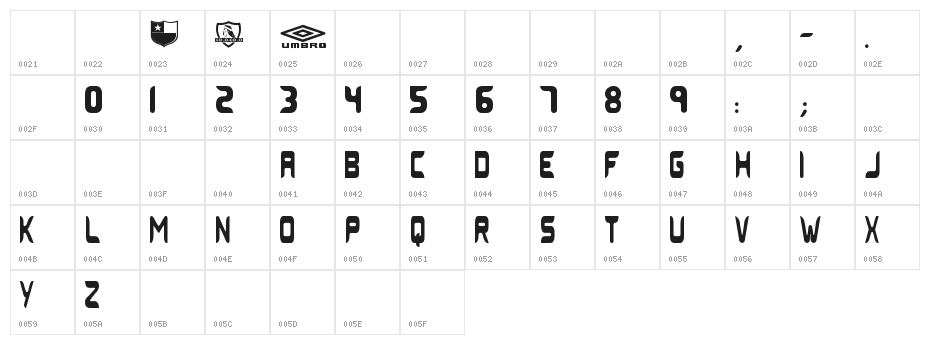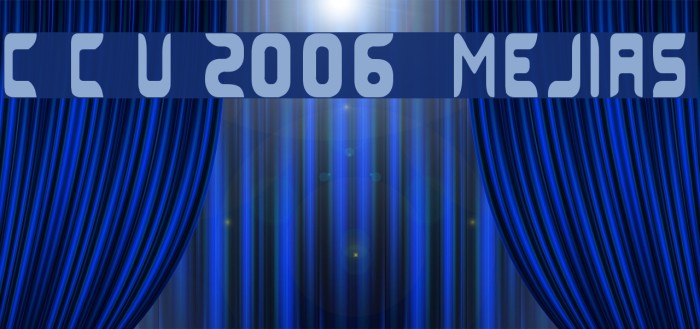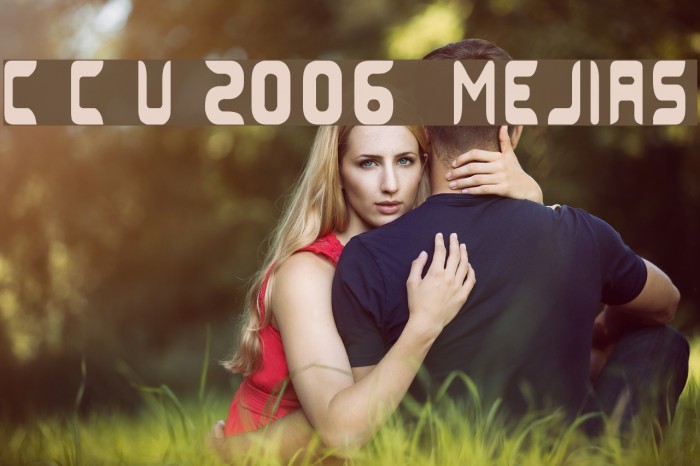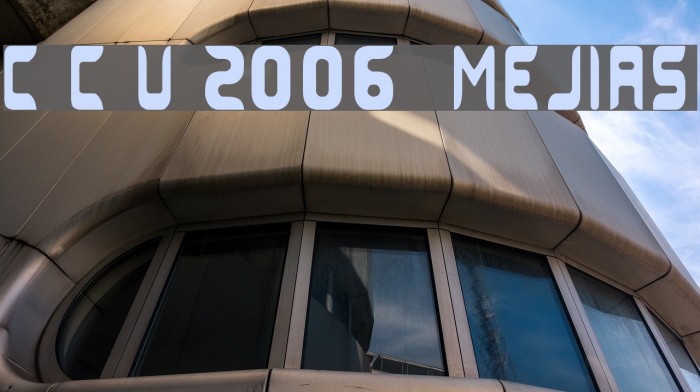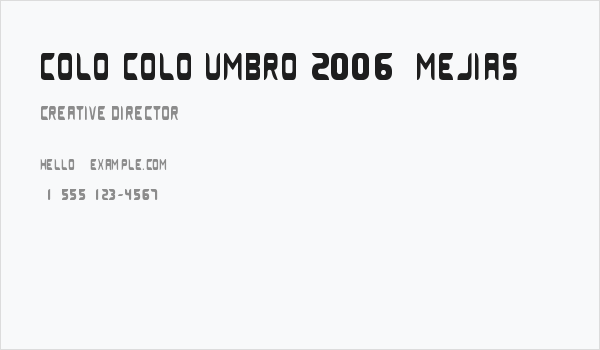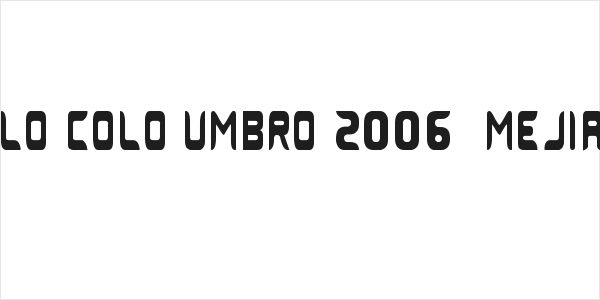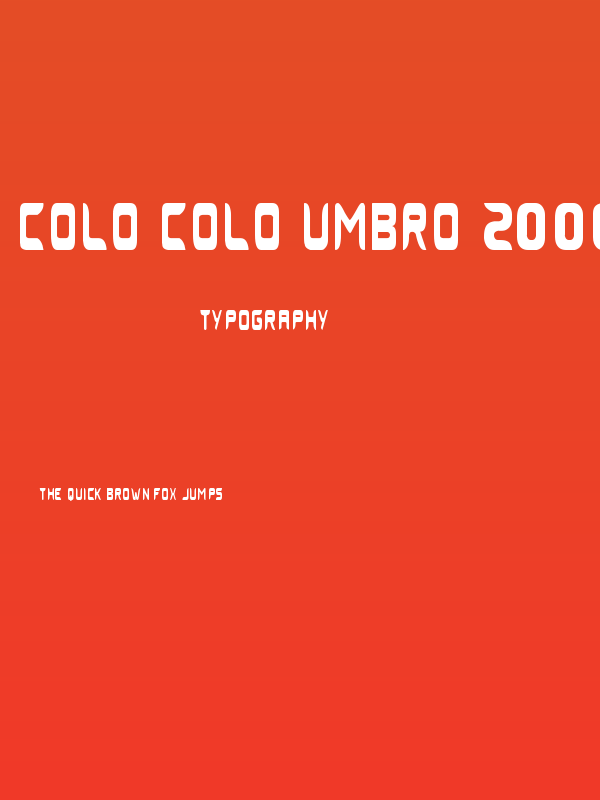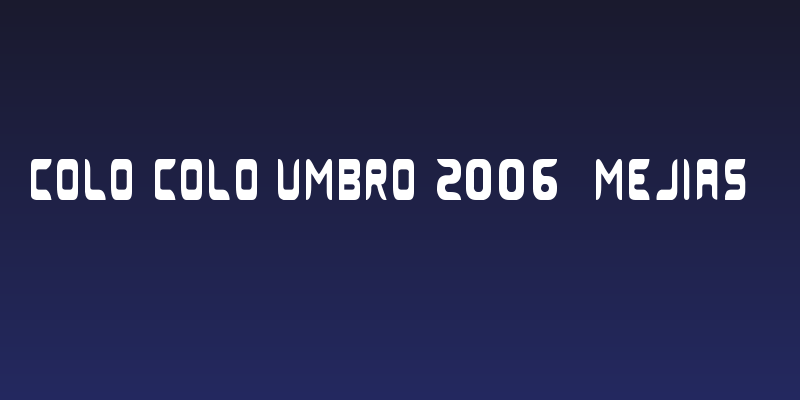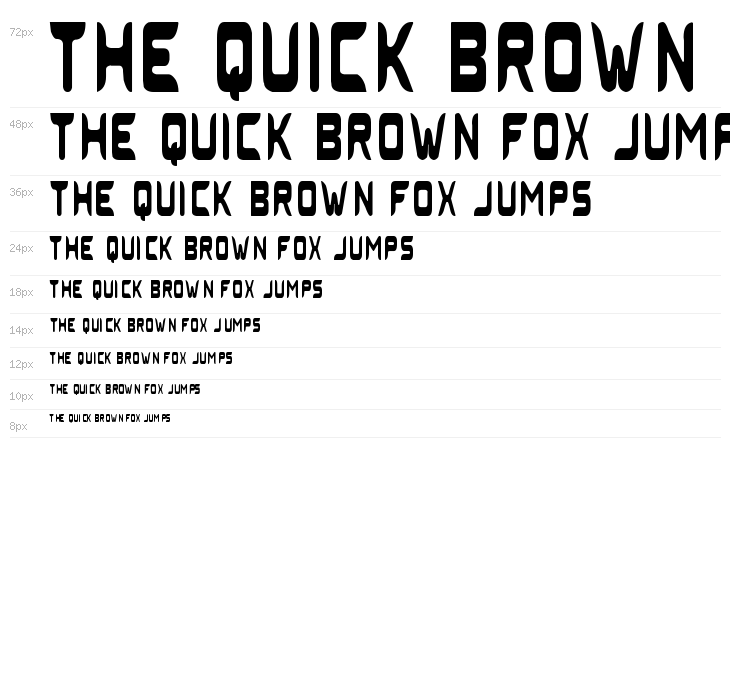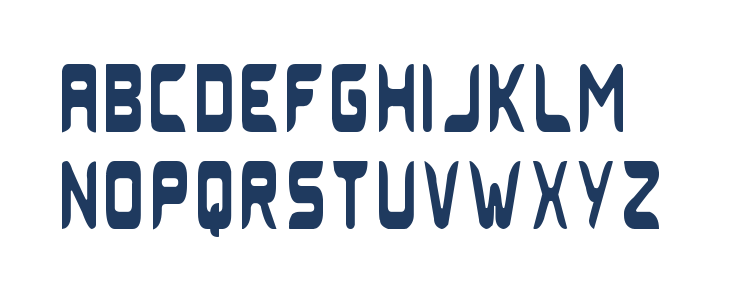
This font features a bold and modern design with a strong presence. The characters are uniformly thick, with rounded edges and a slightly condensed appearance, giving them a distinctive and robust look. The uppercase letters are prominent and well-defined, while the lowercase letters maintain a consistent style that complements the overall aesthetic. The numbers are clear and easy to read, matching the boldness of the alphabet. This font is ideal for creating a striking visual impact, making it suitable for sports jerseys, branding, and promotional materials.
| Proposed Projects | Ideal for sports jerseys, branding, promotional materials, and logos. |